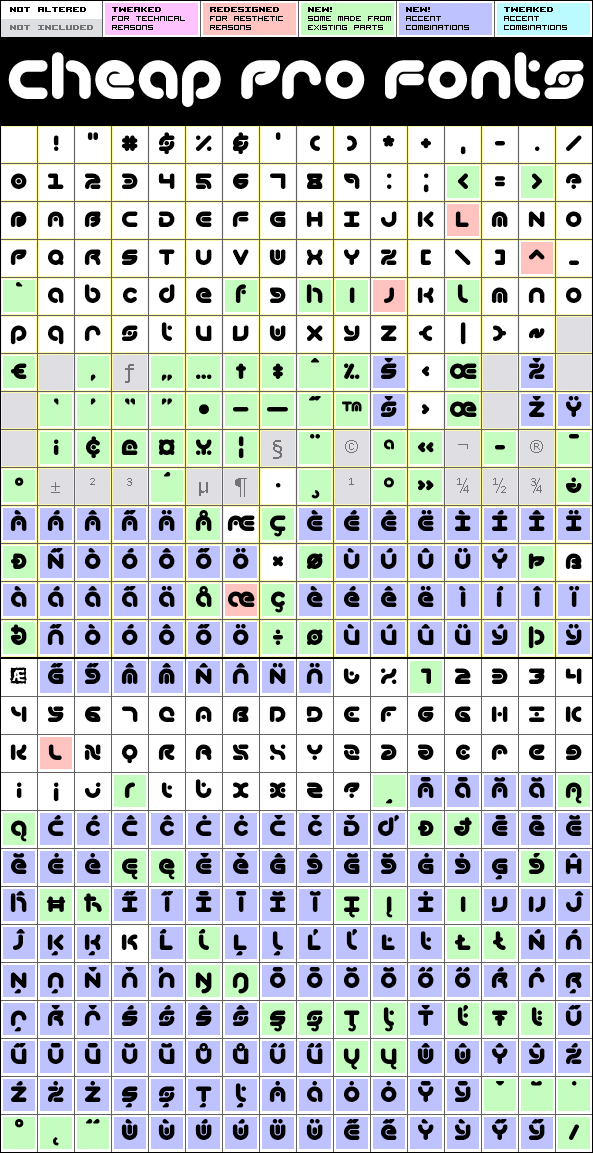
Technique BRK Pro
Technique BRK Pro by Brian Kent
409 glyphs!
(145 in original)
158 class kernpairs
= 18290 kerning pairs
(4040 in original)
OpenType features:
Alternate letterforms
(see "images" below)
The perfect companion for the Outline version (it exactly fills the "holes") but also a nice techno font in its own right... Also includes some alternate letterforms, but only in their basic forms (not made in combinations with diacritics). These alternates are available via your programs' glyph palette or using the OpenType functions "Stylistic Alternates"/"ss02" and "Swash"/"ss01".
Technique BRK Pro is a professionally reworked font that contains an extended character set for setting text in 65 languages requiring more than the basic A-Z!